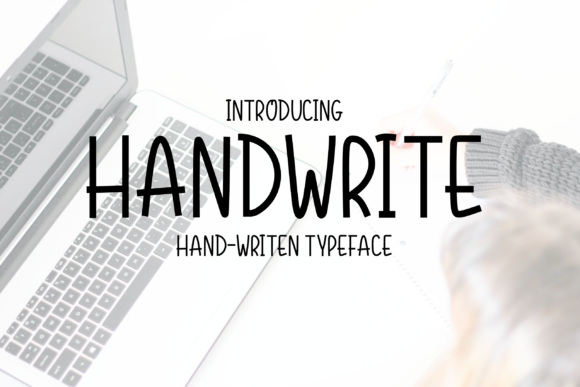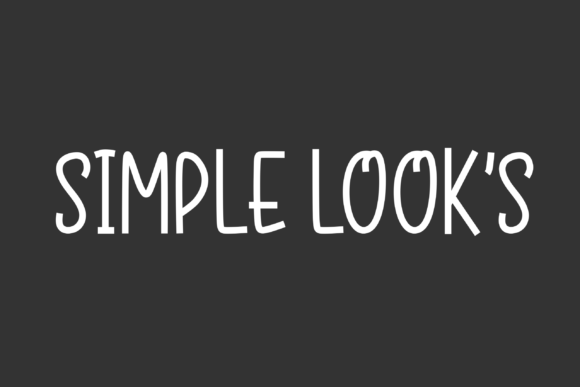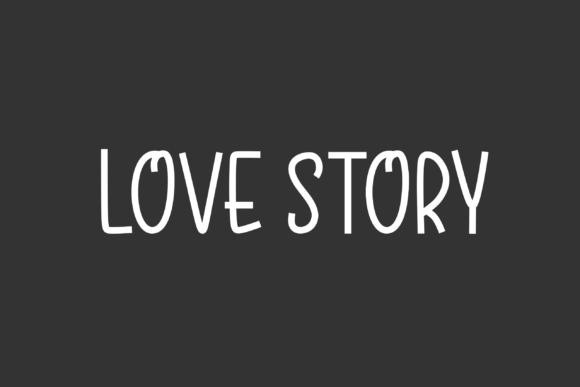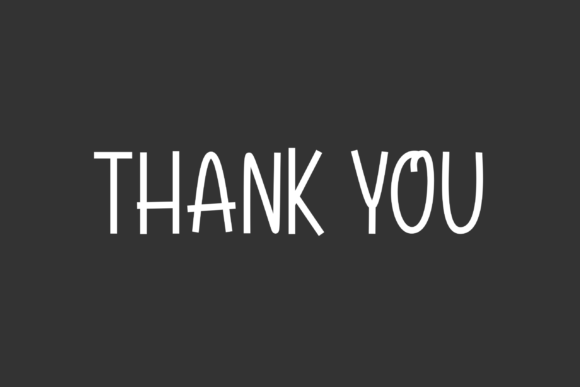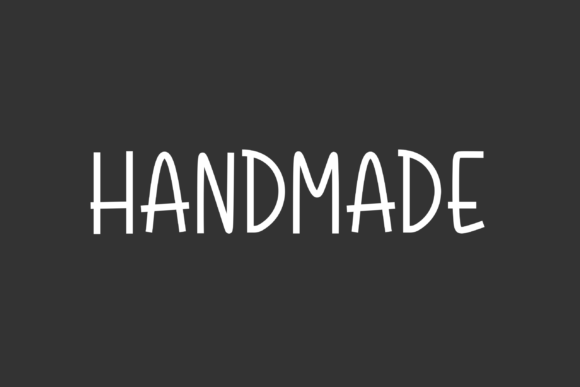
Handwrite Font
About Handwrite Font
Handwrite is a charming handwritten font. With its creative and well-balanced characters, this font can easily become your favorite. It can be used for books, magazines, social media posts, invitations, and so much more!